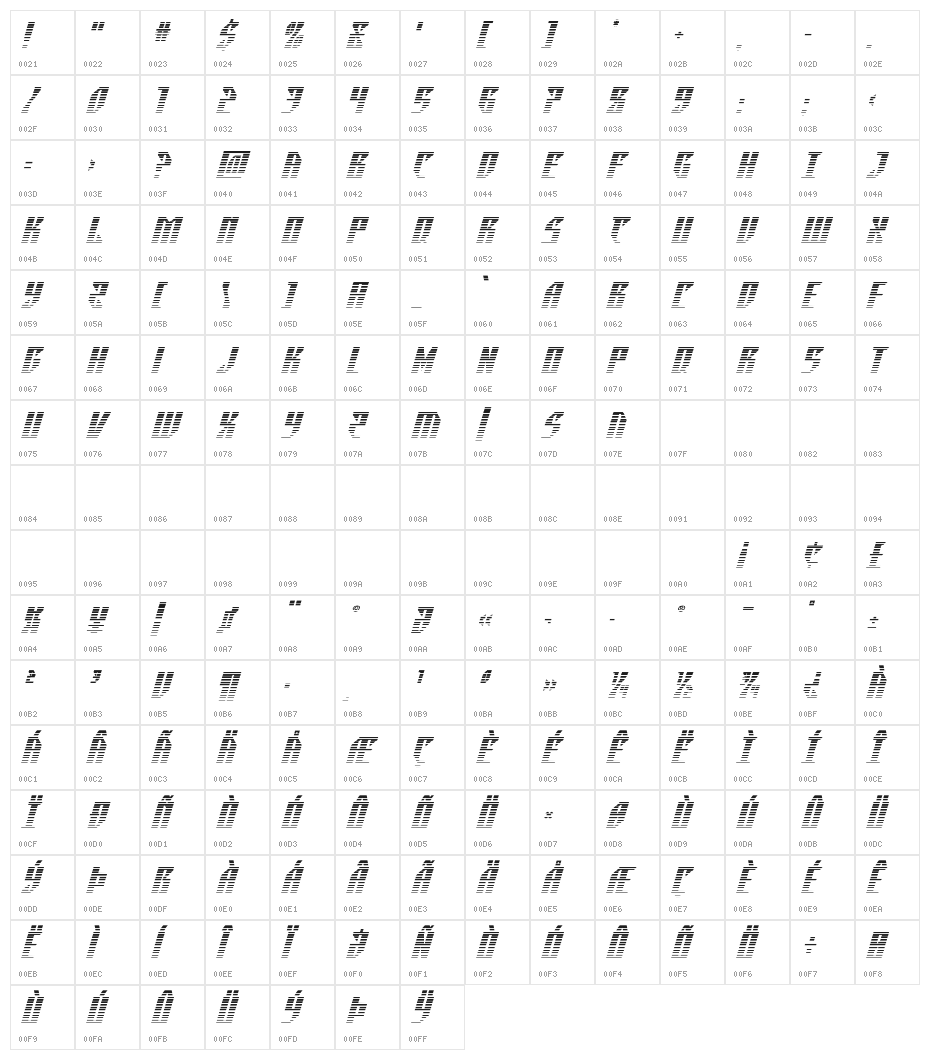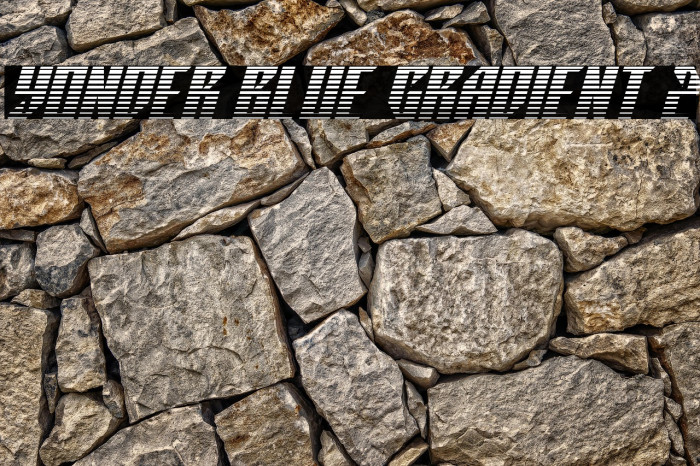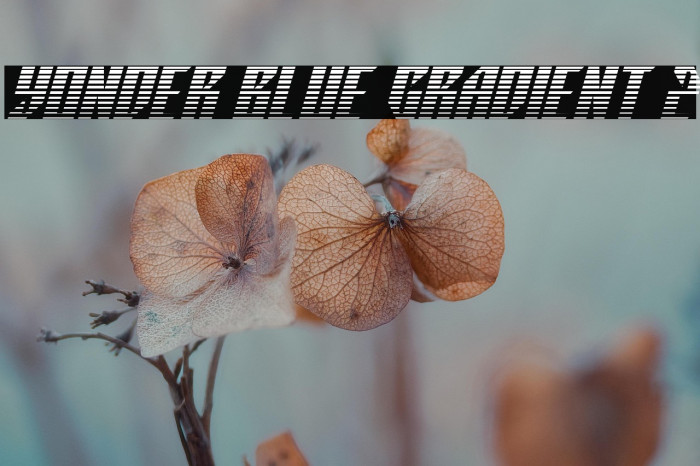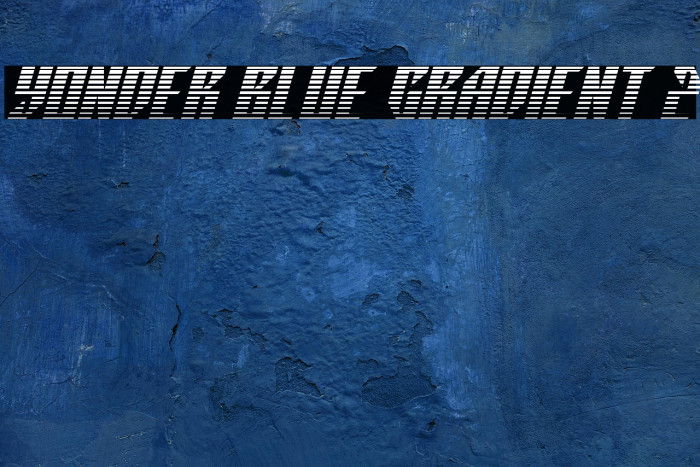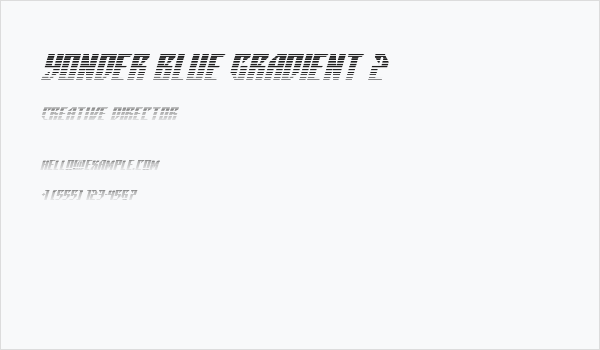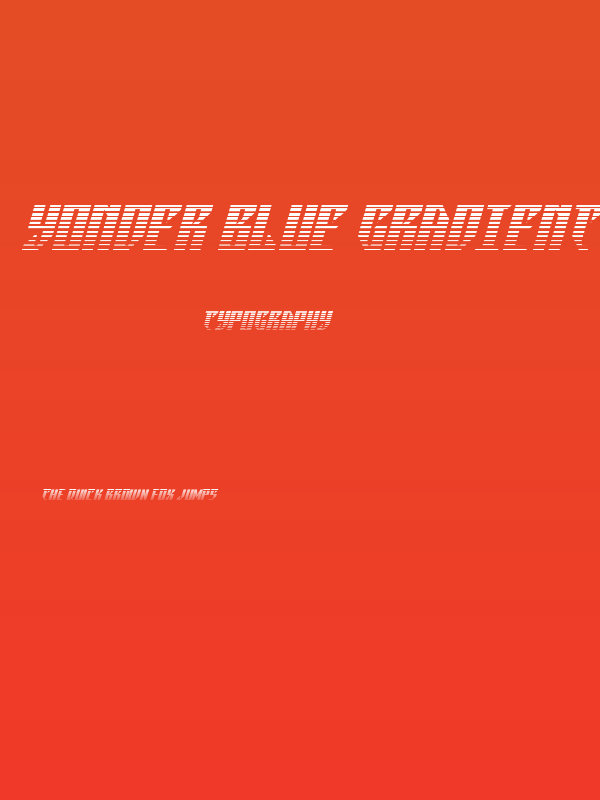
Yonder Blue Gradient 2 Font
Yonder Blue Gradient 2 Description
This font features a dynamic and futuristic design characterized by its horizontal stripe pattern that creates a sense of motion and speed. The letters are bold and angular, with a slanted orientation that enhances the impression of forward movement. Each character is composed of parallel lines, giving it a unique, segmented appearance. This style is reminiscent of digital displays or racing themes, making it stand out with its modern and edgy aesthetic. The font maintains a consistent width across characters, ensuring readability while preserving its distinctive style.
| Proposed Projects | Ideal for projects related to technology, gaming, sports branding, or any design needing a modern, energetic feel. |